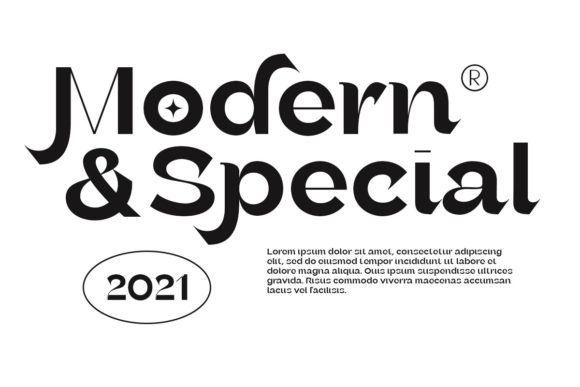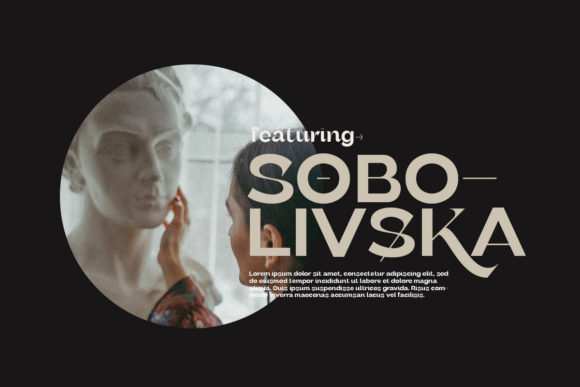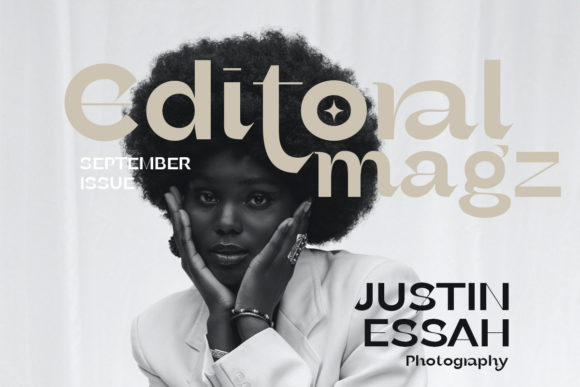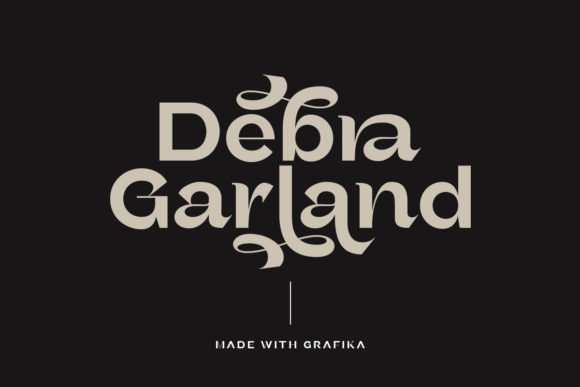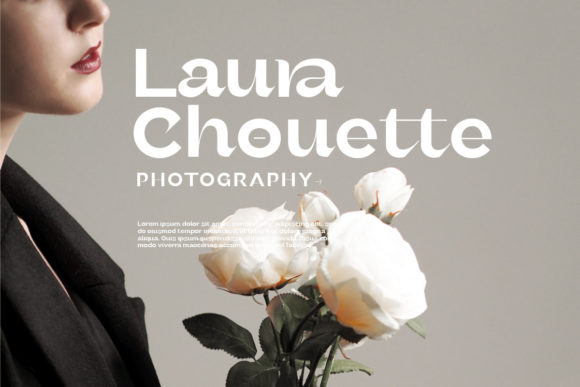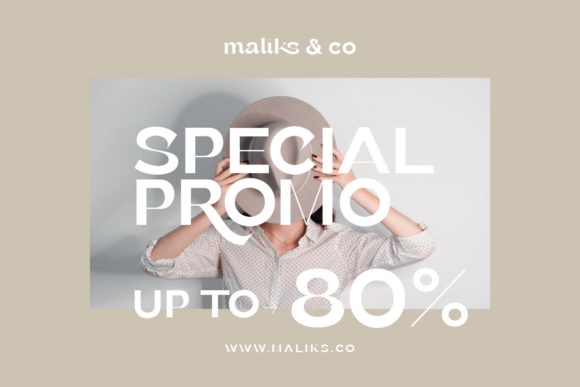
I still remember the countless hours I spent searching for the ideal font for a client’s fashion brand. The project required something modern, luxurious, and stylish, but my usual go-to fonts just weren’t cutting it. That’s when I stumbled upon Grafika, a game-changing display font that exceeded my expectations. In this article, I’ll share my experience with Grafika, its features, and how to make the most of it in your designs.
An Honest Review of Grafika
What I Love About Grafika ✨
- ✅ Smooth curves and elegant lines that scream luxury
- ✅ Perfect for fashion branding, editorial designs, and high-end projects
- ✅ Highly versatile and adaptable to different design styles
- ✅ Easy to read, even in large sizes
While Grafika is an exceptional font, it’s not without its limitations. For instance:
- 🤔 It may not be the best choice for body text or long paragraphs, as it’s primarily designed for display purposes
- ⚠️ Some users might find the font too ornate or over-the-top for certain projects
A Practical Guide to Using Grafika
- Experiment with OpenType features, such as stylistic alternates and glyphs, to add visual interest
The Story Behind Grafika
Grafika was designed with the fashion industry in mind. Its creator, a renowned type designer, aimed to craft a font that would embody the elegance and sophistication of high-end fashion. With Grafika, designers can instantly elevate their projects and add a touch of luxury.
Q: What is Grafika’s primary use?
A: Grafika is primarily designed for display purposes, making it perfect for headlines, titles, and short text.
Q: Can I use Grafika for body text?
A: While possible, Grafika is not optimized for body text. Its elegant lines and smooth curves are better suited for display purposes.
Q: Is Grafika suitable for digital use?
A: Absolutely! Grafika is designed to look great on various digital platforms, from websites to social media graphics.